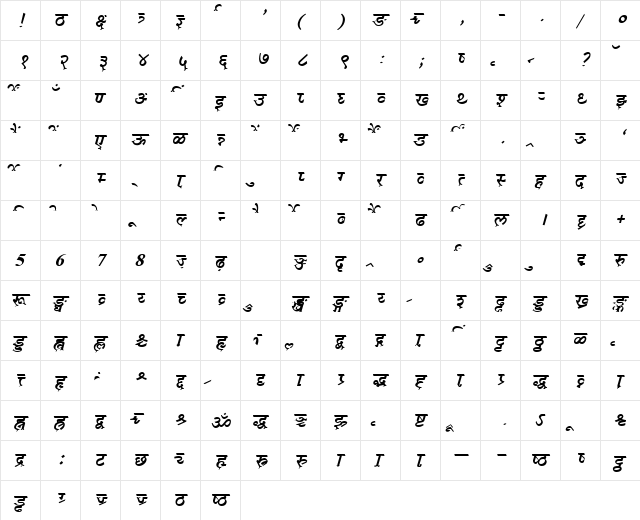
AkrutiDevHema NormalItalic
Design Context for AkrutiDevHema Typeface
AkrutiDevHema offers clean, dependable letterforms without strong stylistic allegiance, making it a practical choice for designers who need flexibility. The slanted form adds forward momentum and visual energy.
Pro Tip: Try AkrutiDevHema for annotation and caption copy alongside an upright companion — the contrast in angle creates a dynamic but ordered typographic system.